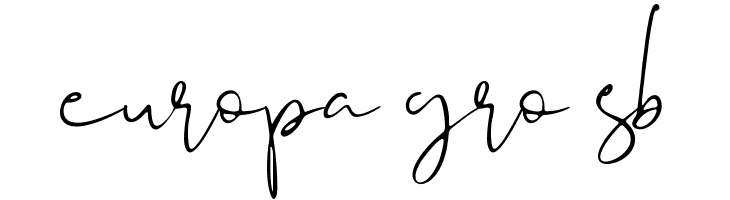
An elegant script font with smooth, flowing lines and a handwritten style.
A modern, handwritten script font with a casual and flowing style.
An elegant, cursive font with flowing, elongated strokes and decorative loops.